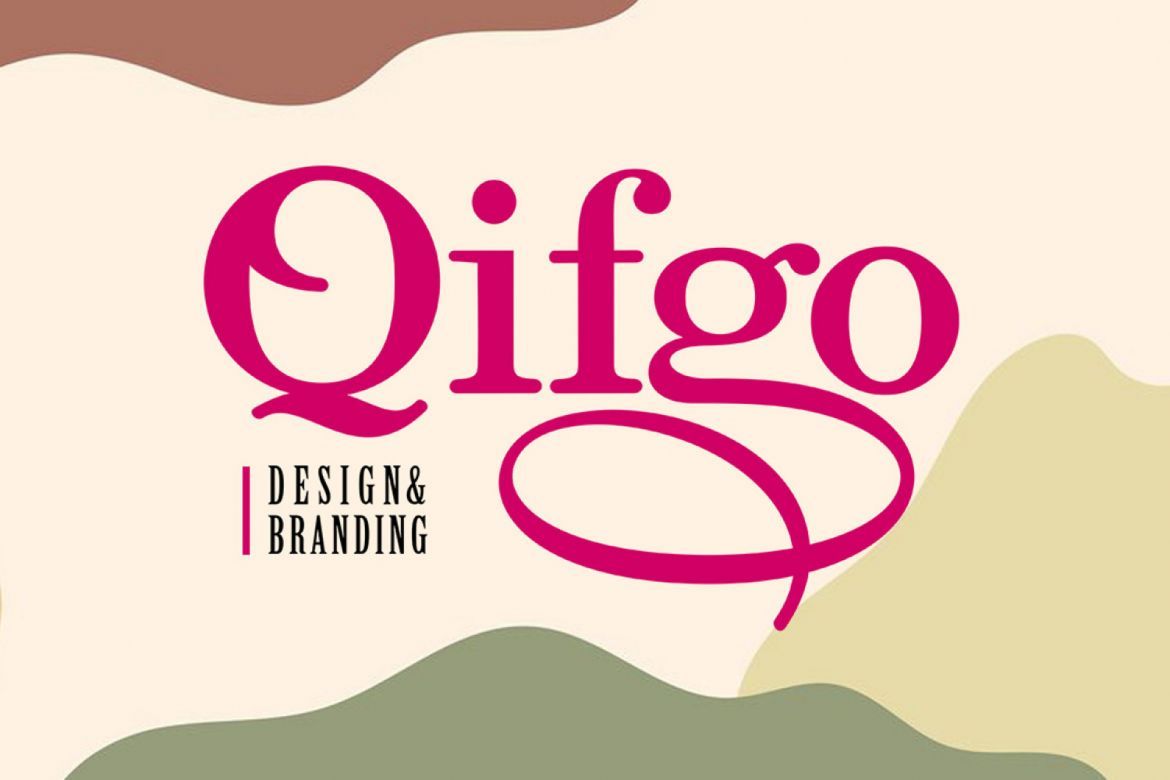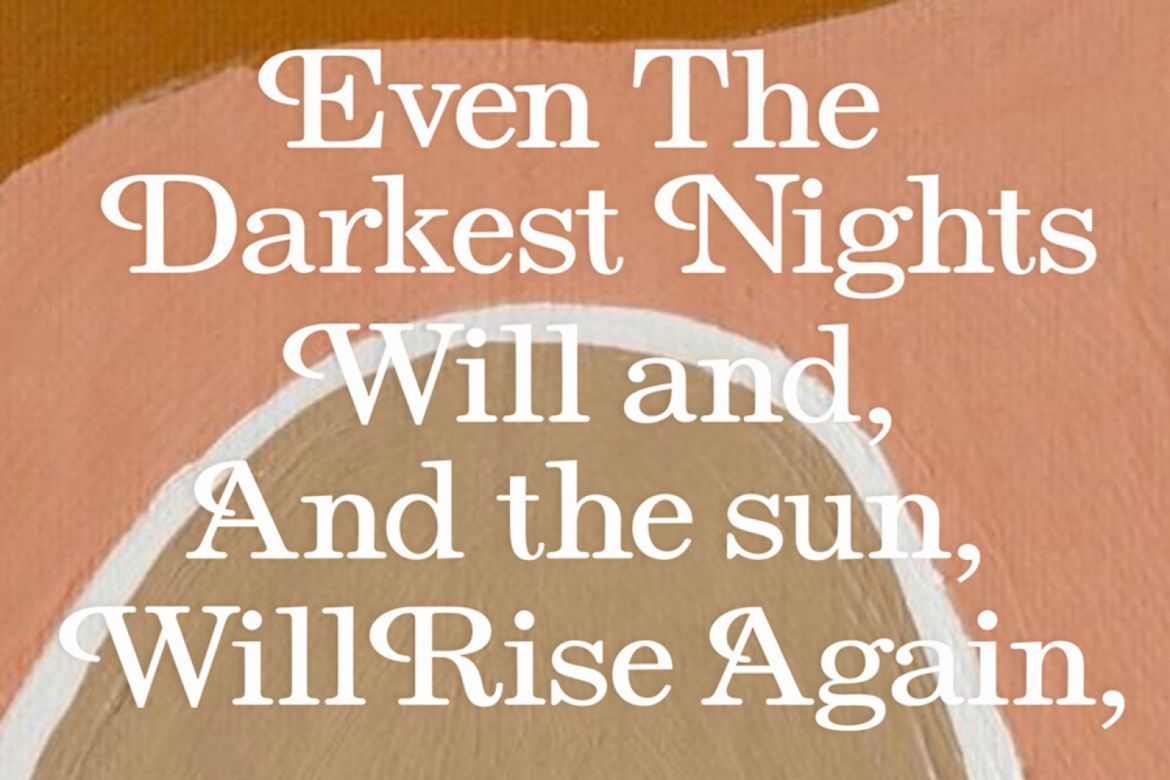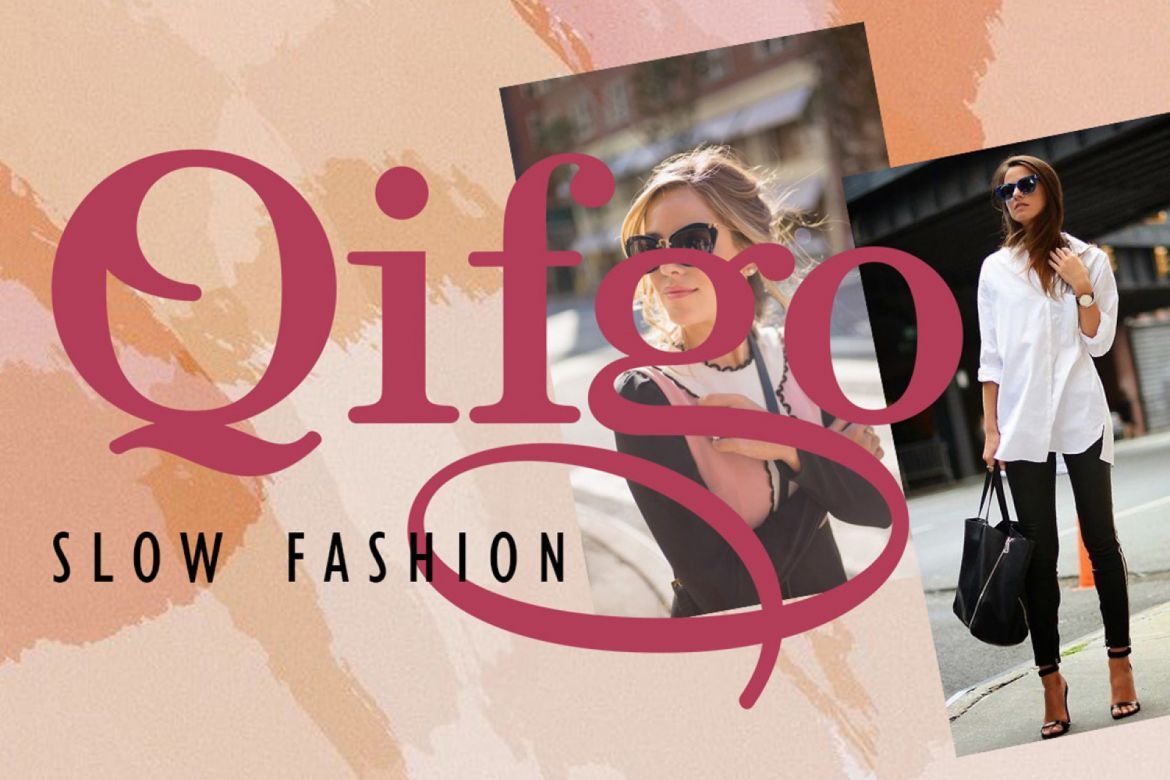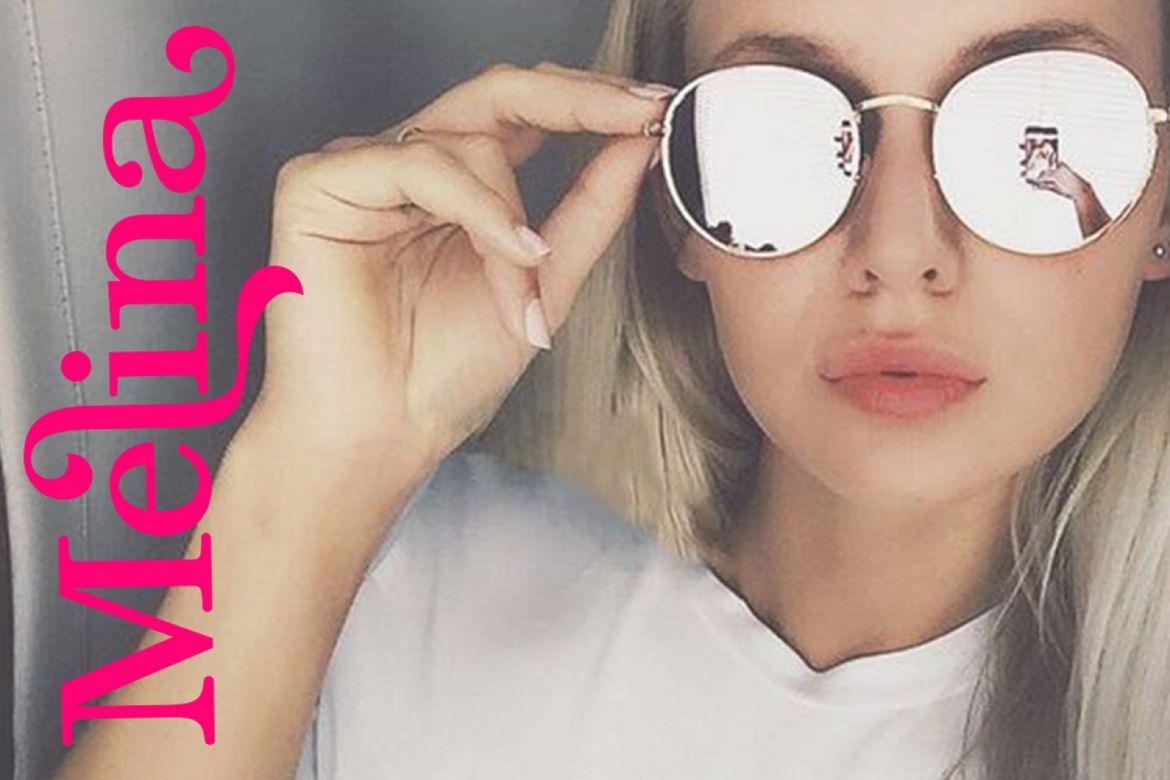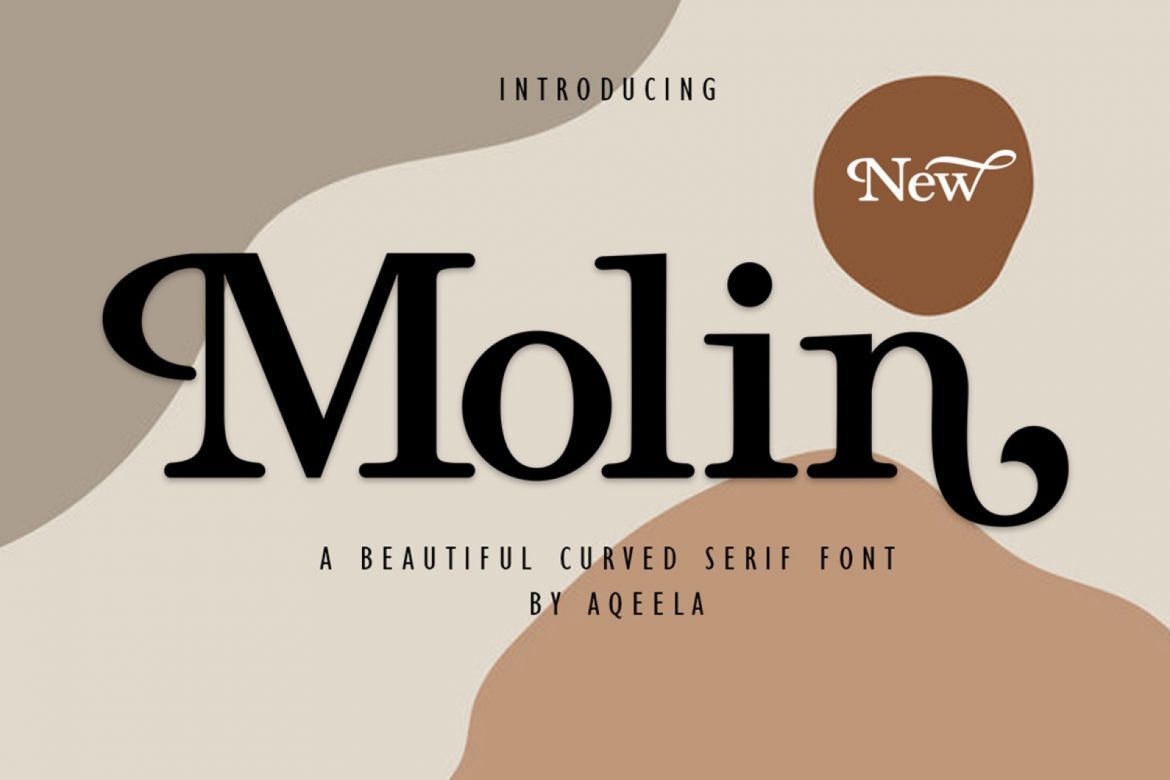
Molin Curved Serif Font
Molin are upper and smaller serif fonts with balanced curves. Like all my fonts inspired by letters from a beautiful past, but still have a strong modern appearance. A variety of alternative styles allow versatile design options and work perfectly for headlines, logos, posters, packaging, T-shirts, postcards and more.
• a variety of alternative styles allow versatile design options and work perfectly for headlines, logos, posters, packaging, t-shirts, postcards and more.